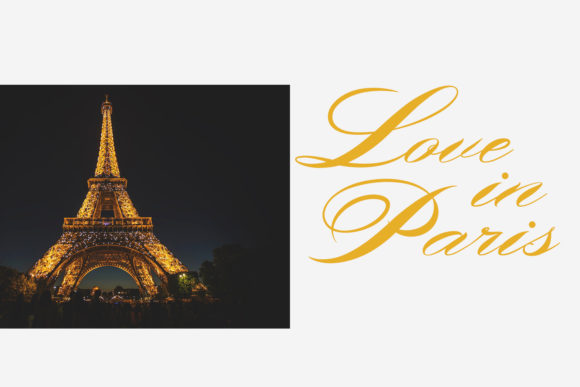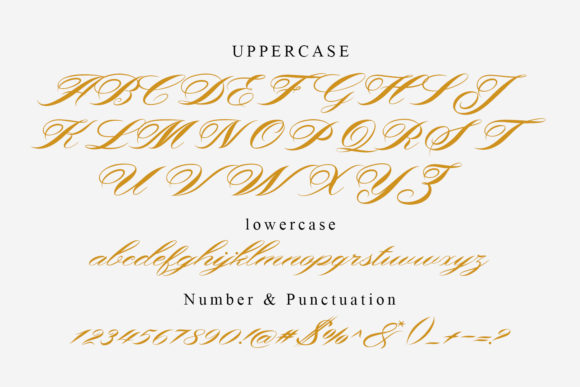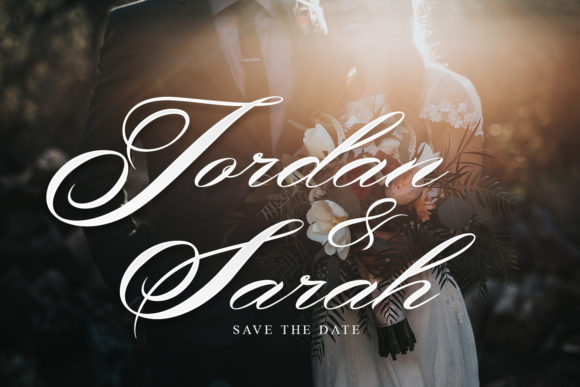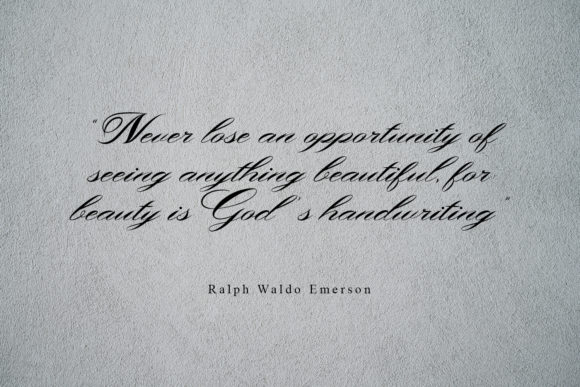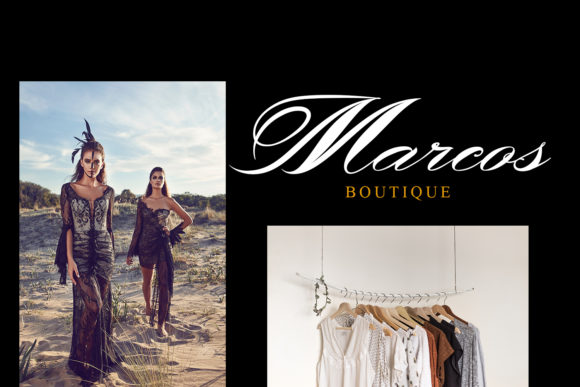
Introduction to Shergine Font
Have you ever found yourself in the midst of a creative project, pouring your heart and soul into every detail, only to feel like something’s missing? That’s where the perfect design resource can make all the difference. For those looking to add a touch of elegance and romance to their work, we’re excited to introduce you to the beautiful Shergine Font.
With its unique script style, Shergine Font is the perfect addition to any crafting project. Whether you’re a seasoned designer or just starting out, this font is sure to bring a touch of sophistication and whimsy to your work. Its versatility makes it a valuable asset for designers looking to elevate their creative projects.
Key Features of Shergine Font
- Unique and elegant design suitable for creative projects requiring a touch of sophistication.
- High-quality font with transparent background, ideal for use in design resources that require a seamless integration.
- Features a large character set, including uppercase and lowercase letters, numbers, and special characters.
- Perfect for use in logos, branding materials, and other design elements where a high-quality, elegant font is required.
Honest Review: Shergine Font
As a designer, I’m always on the lookout for high-quality design resources to enhance my creative projects. The Shergine Font is one of the latest additions to my collection, and I’m excited to share my honest review with you.
Overall, I’m extremely impressed with the Shergine Font and would highly recommend it to any designer looking for a reliable and high-quality design resource.
- Modern and sleek design
- Perfect for logos, branding, and typography
For getting the most out of the Shergine Font, try using it in creative projects that require a high-quality, professional look. Some common use cases include designing business cards, logos, and marketing materials. The transparent background feature also makes it ideal for use in digital designs, such as social media graphics and website headers.